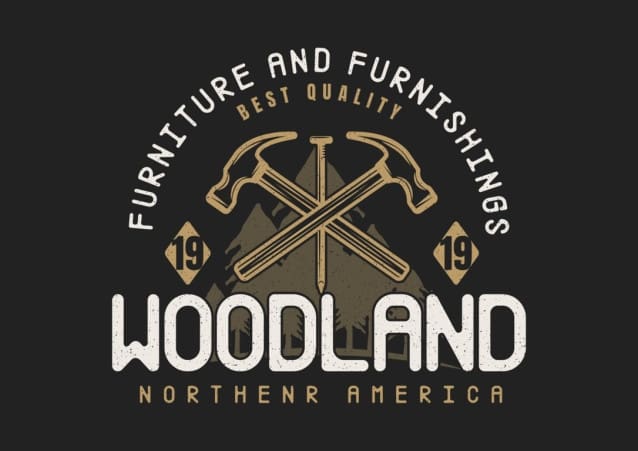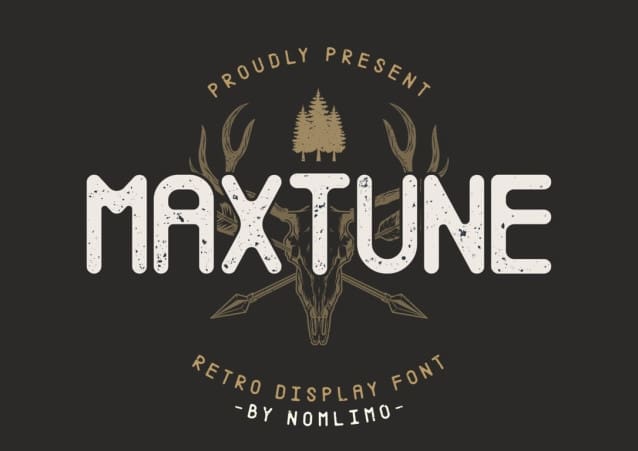
Maxtune Display Font
Maxtune Display Font, a bold monoline font with a vintage touch. This typeface is specifically designed for applications such as logos, headlines, signage, and other formal forms, including invitations, labels, magazines, books, greeting/wedding cards, packaging, fashion, makeup, stationery, novels, labels, or any type of advertising purpose. Maxtune captures a nostalgic essence, adding a touch of timeless elegance to your designs.